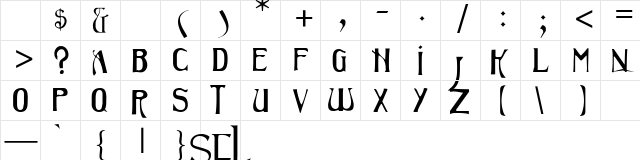
Mondial Regular
Design Context for Mondial Typeface
Mondial is a composed and adaptable typeface that performs quietly and consistently across a wide range of design contexts.